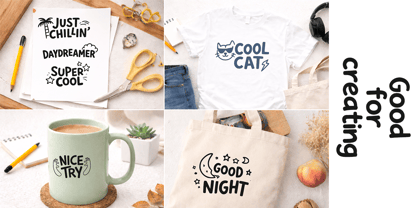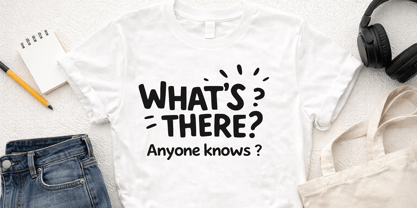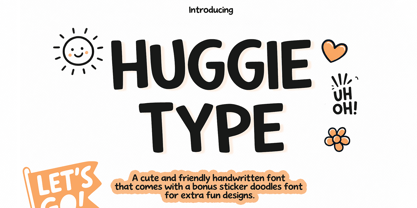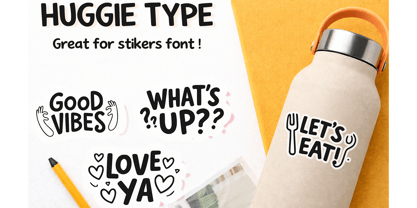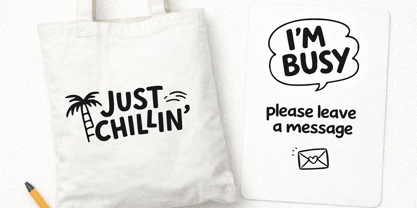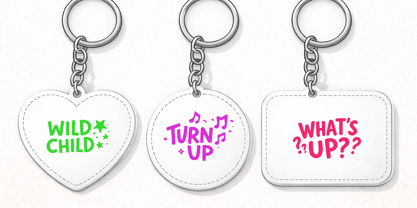
Huggie Type
The Huggie Type Font Family was designed by Muhammad Zaini and published by Cocodesign. Huggie Type contains 2 styles and family package options. More about this family
Huggie Type is a cute and playful handwritten font featuring rounded, bold, and clean letterforms that create a cheerful, warm, and highly readable look. Designed for a wide range of creative uses such as logos, branding, packaging, posters, social media, merchandise, and kids-related designs, this font also includes a bonus sticker doodles font to add fun, decorative, and expressive elements to both digital and print projects.